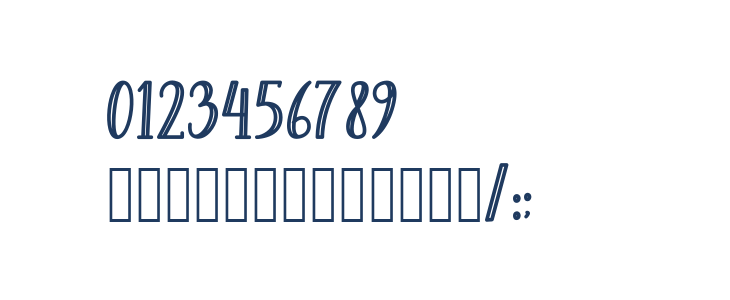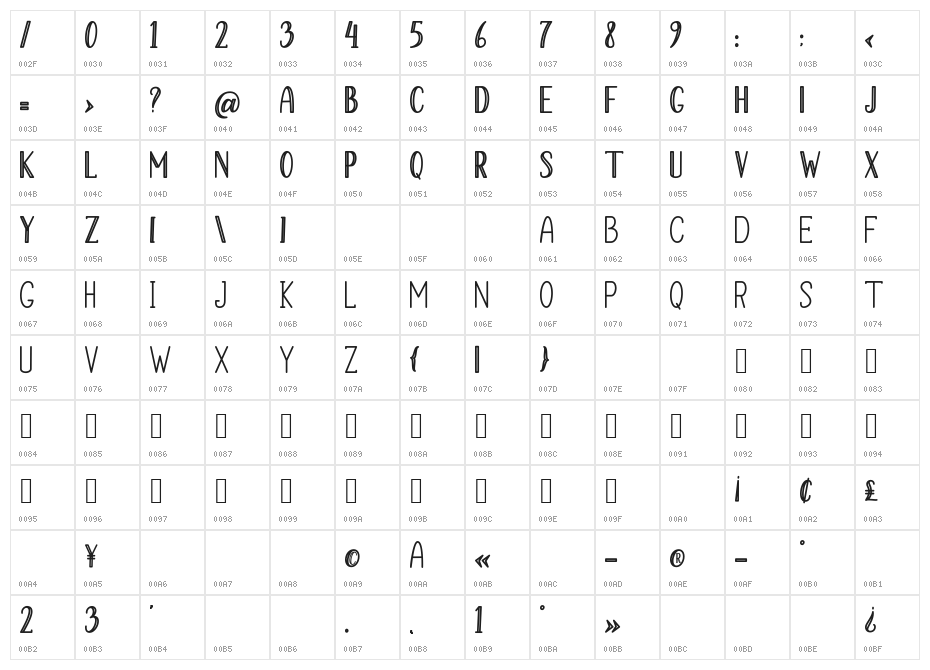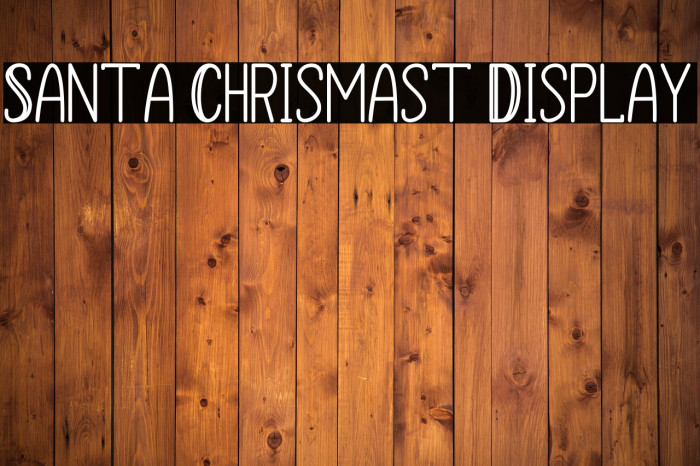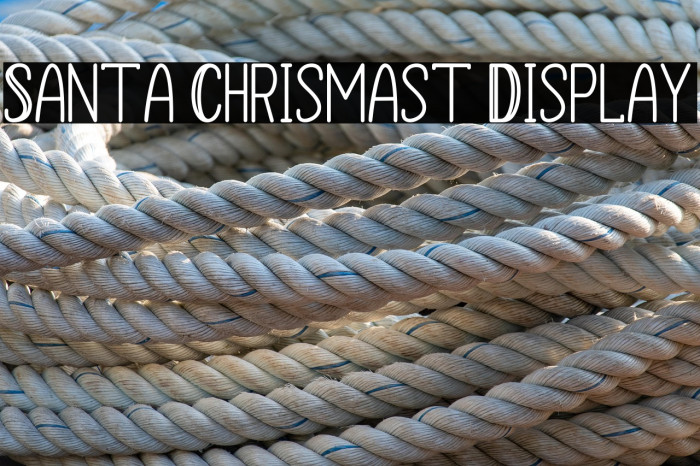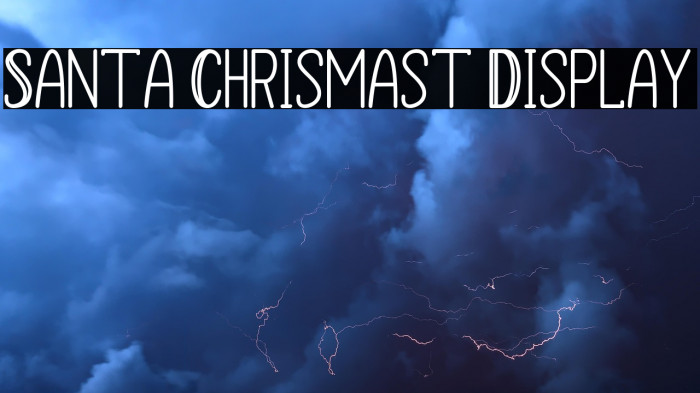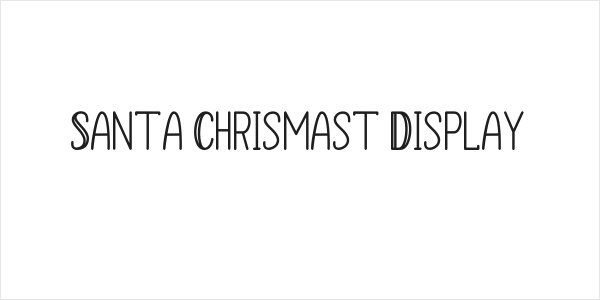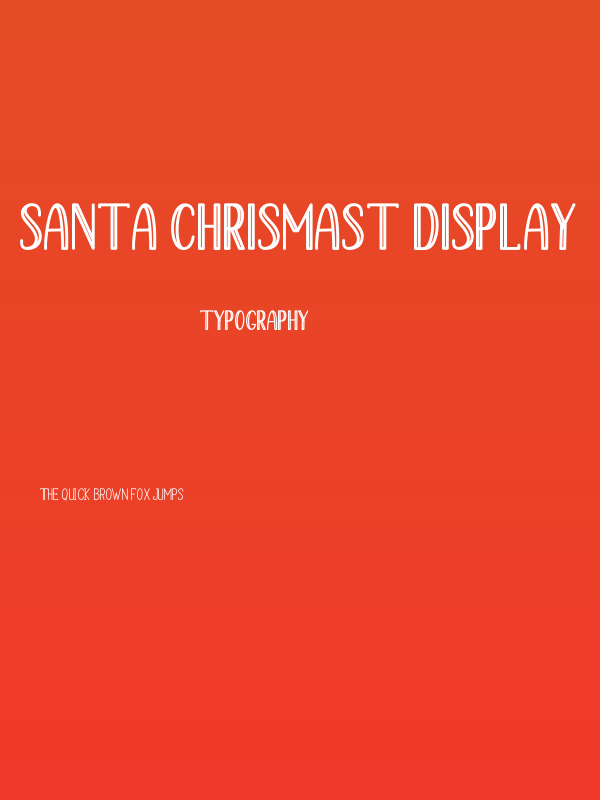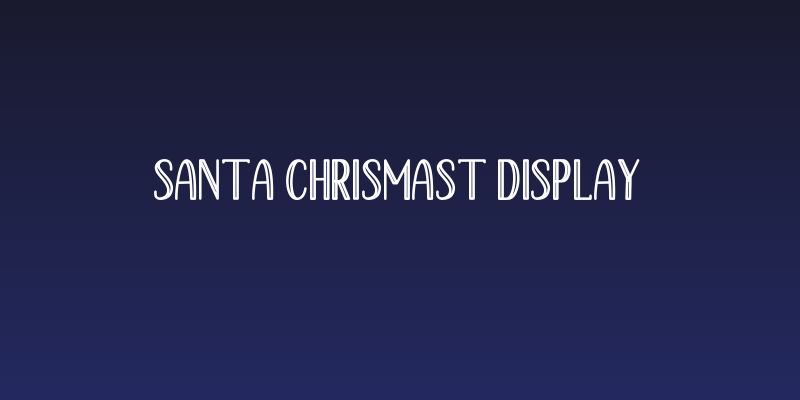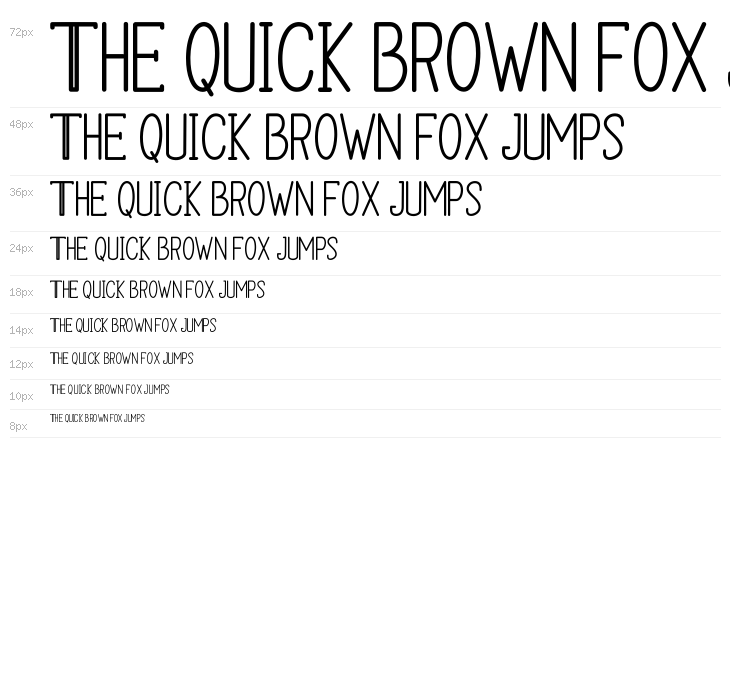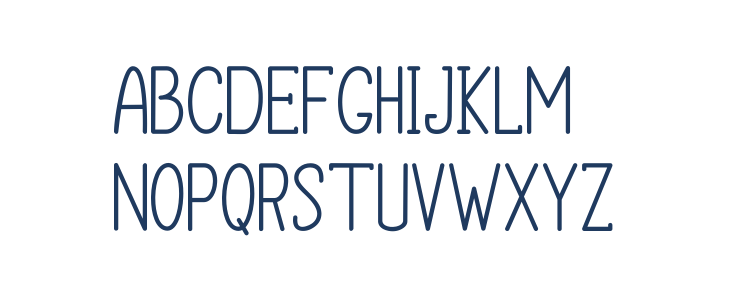
Santa Chrismast Display Font
Santa Chrismast Display Description
This font features a playful and whimsical style, characterized by its tall, narrow letters with a slight slant. The strokes are consistent in width, giving it a clean and modern appearance. The uppercase letters are bold and prominent, while the lowercase letters maintain the same playful aesthetic. The numbers are distinct and easy to read, with a slight curve that adds to the overall charm. This font is ideal for festive and cheerful designs, capturing a sense of joy and celebration.
| Overall Style | Playful, Festive |
| Use Case | Headlines, Logos, Decorative Text |
| Proposed Projects | Perfect for holiday cards, festive banners, children's book covers, and playful branding. |